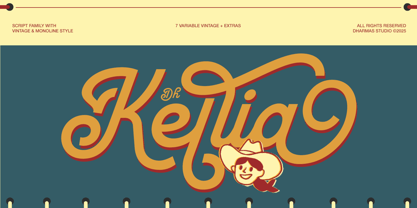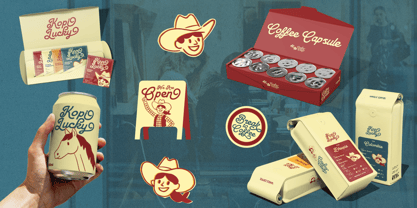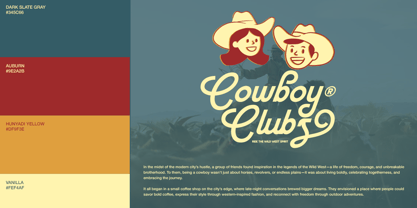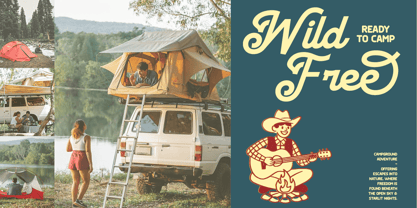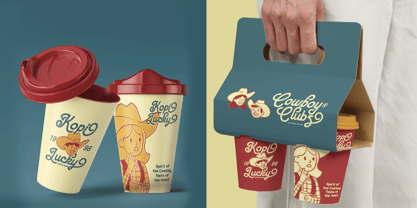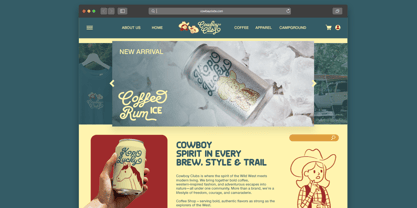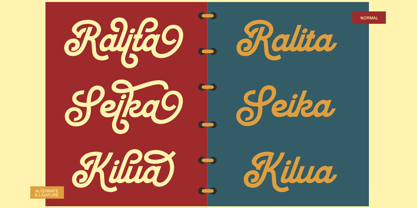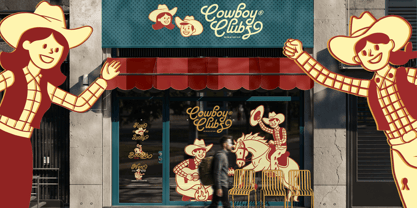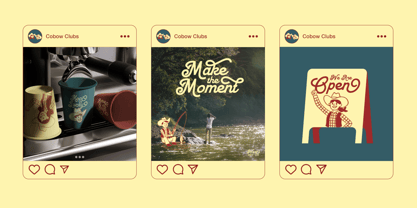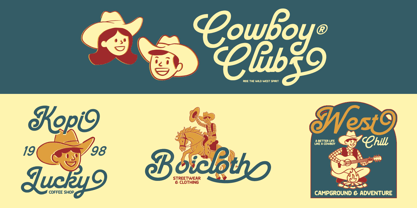
Dh Kellia is a charming vintage script font family inspired by the nostalgic spirit of the Wild West and retro hand-lettering styles. It blends playful curves with elegant strokes, creating a warm and friendly personality perfect for branding, packaging, apparel, café logos, retro posters, and creative social media designs.
This font family comes with 7 styles — Thin, Extra Light, Light, Regular, Medium, Semi Bold, and Bold — giving you the flexibility to match various visual tones and project needs. Equipped with 125+ alternates and ligatures, Dh Kellia allows endless creativity in lettering compositions, making every word look uniquely handcrafted and full of character.
Complete with uppercase, lowercase, numerals, punctuation, and multilingual support, Dh Kellia is your go-to font family for vintage-inspired designs with a touch of modern elegance.
Dh Kellia Font Features:
7 Weights: Thin, Extra Light, Light, Regular, Medium, Semi Bold, Bold
Dh Kellia Specimen Font
125+ Alternates and Ligatures
Letters, numbers, symbols, punctuation, special alternates
Multilingual Characters available for:
Afrikaans, Albanian, Asu, Basque, Bemba, Bena, Breton, Chiga, Cornish, Dutch, English, Estonian, Filipino, Finnish, Friulian, Galician, German, Gusii, Indonesian, Irish, Italian, Kabuverdianu, Kalenjin, Kinyarwanda, Luo, Luxembourgish, Luyia, Machame, Makhuwa-Meetto, Makonde, Malagasy, Manx, Morisyen, North Ndebele, Nyankole, Oromo, Portuguese, Quechua, Romansh, Rombo, Rundi, Rwa, Samburu, Sango, Sangu, Scottish Gaelic, Sena, Shambala, Shona, Soga, Somali, Spanish, Swahili, Swedish, Swiss.
Dh Kellia